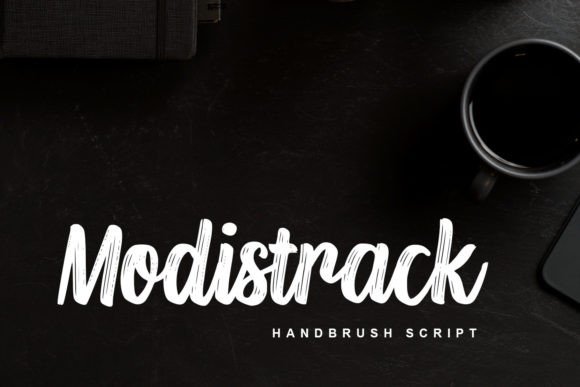
Adorn your baby's milestones with the enchanting Modistrack Script Font, a calligraphy masterpiece that weaves elegance and charm into every letterform. Crafted by the skilled Abodaniel, this font is a testament to artistry, seamlessly blending the classic allure of calligraphy with a touch of modern flair.
Journey into a world of visual delight as you embrace Modistrack's intricate details, sweeping curves, and graceful flourishes. Each character dances across the page, telling tales of love, joy, and the boundless wonder of your little one's growth. Its delicate strokes evoke a sense of timeless sophistication, while its contemporary appeal ensures your baby's story remains vibrant and relevant.
With Modistrack, you have the power to transform ordinary moments into cherished memories. Use it to create personalized birth announcements that capture the essence of your newborn's arrival. Design heartwarming growth charts that chronicle their remarkable journey from tiny toes to lanky limbs. Craft nursery wall art that speaks to their unique personality and dreams. Let Modistrack's elegant curves cradle your child's milestones, creating keepsakes that you'll treasure for a lifetime.
Beyond baby-related projects, Modistrack's versatility knows no bounds. Its enchanting nature lends itself beautifully to wedding invitations, greeting cards, logos, branding, and social media graphics. Its ability to evoke emotion and create a lasting impression makes it the perfect choice for any creative project that seeks to captivate and inspire.
Unleash your creativity and embark on a journey of self-expression with Modistrack. Let its flowing lines and captivating charm enhance your designs and leave an indelible mark on the hearts of those who encounter them. Discover the magic of Modistrack Script Font today and elevate your creative endeavors to new heights!